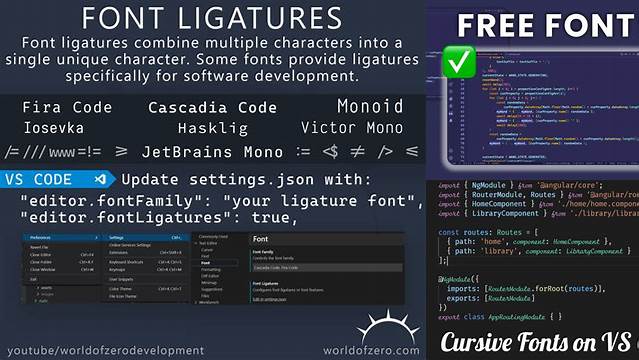
Best VS Code Fonts & How To Customize Them (Reddit Guide)
Hey everyone! If you're here, you're probably looking to jazz up your Visual Studio Code (VS Code) experience with some awesome fonts, and you've likely been browsing Reddit for some inspiration. Well, you've come to the right place! Choosing the right font in VS Code can drastically improve your coding comfort and productivity. It's like finding the perfect pair of shoes – you want something that looks good, feels great, and helps you get the job done. This guide dives deep into VS Code fonts reddit discussions, exploring the best fonts available, how to install them, and how to customize them to fit your personal coding style. Let's get started, yeah?
1. The Significance of Fonts in VS Code
So, why are VS Code fonts so important, anyway? Well, imagine staring at code for hours on end. The font you use becomes your constant companion. A good font reduces eye strain, makes your code more readable, and can even make coding more enjoyable. Seriously! The right font can highlight the structure of your code, making it easier to spot errors and understand complex logic. On the flip side, a poorly chosen font can lead to fatigue, frustration, and missed bugs. You might find yourself squinting, straining to differentiate between similar characters, and generally feeling less productive. Think of it like this: A well-designed font is like a clean, organized desk. It helps you stay focused and efficient. A messy font is like a cluttered desk. It's distracting and can slow you down. When exploring VS Code fonts Reddit discussions, you'll see a common theme: Developers take their font choices seriously. They understand that it’s a crucial part of their workflow. Different fonts are designed with different purposes in mind. Some are designed for optimal readability, others for aesthetic appeal, and still others for specific coding languages. For example, some fonts are monospaced, which means that every character takes up the same amount of horizontal space. This is generally the preferred option for coding, as it makes it easier to align code and see its structure. Others are proportional, which means that the characters take up varying amounts of space. These fonts can be more visually appealing, but they can sometimes be harder to read in code.
Choosing the right font is a matter of personal preference, so exploring the VS Code fonts reddit community is a great way to find out what works best for you. In the end, the best font is the one that helps you code comfortably and efficiently. Don’t be afraid to experiment with different options and find the font that feels right for you. You might be surprised at how much a simple font change can improve your coding experience. It's like upgrading from a basic keyboard to a mechanical one—the small change can make a huge difference in the long run. Remember, your font is more than just text on a screen. It’s an extension of your coding environment, and it’s worth taking the time to find the perfect fit.
2. Top Font Recommendations from the VS Code Reddit Community
Alright, let's get down to the good stuff: What are the best VS Code fonts, according to the wise folks of Reddit? You’ll find that the community has strong opinions, but there are definitely some clear favorites. Here's a breakdown of the top contenders, along with some insights gleaned from those VS Code fonts reddit threads:
- Fira Code: This font is a popular choice, and for good reason. Fira Code is a monospaced font with ligatures, which are special characters that combine multiple characters into a single glyph. This can make your code look cleaner and more readable. For example, the
=>operator will be displayed as a single arrow, which is visually appealing. Fira Code is known for its clarity and support for various coding languages. It’s a great all-around choice and is often recommended for beginners. It’s easy on the eyes and designed specifically for coding. So, if you're just starting out, or looking for a reliable, well-rounded font, you can't go wrong with Fira Code. - JetBrains Mono: Developed by JetBrains, the creators of popular IDEs like IntelliJ IDEA, JetBrains Mono is another excellent option. It's specifically designed for coding, with a high x-height (meaning the lowercase letters are taller, making them easier to read) and distinctive letterforms. JetBrains Mono is monospaced, supports ligatures, and is optimized for readability, even at small sizes. This is crucial if you are working on a screen with a high pixel density. JetBrains Mono is a strong contender in the VS Code fonts reddit community. If you spend a lot of time in the IDE and love its font, then JetBrains Mono is a must-try for you.
- Cascadia Code: Microsoft's own font, Cascadia Code, is designed to be modern and readable. It's another monospaced font with ligatures, and it’s specifically designed for the Windows Terminal and VS Code. Cascadia Code's ligatures support is excellent. It’s often praised for its crispness and clarity, making it a great choice for both beginners and experienced coders. It's a solid option if you want a modern feel with great legibility, and if you’re already a Windows user, it’s particularly seamless to install and use.
- Operator Mono: For those who appreciate a touch of elegance, Operator Mono is a paid font that's often mentioned in discussions about VS Code fonts reddit. It's known for its stylish, high-contrast look. It's a bit more expensive, but the investment might be worth it if aesthetics are a high priority. It has both monospaced and proportional versions, giving you a great degree of flexibility. Operator Mono often gives your code an elegant, almost artistic feel. It's a good choice if you want to add a touch of style to your coding environment.
- Other Notable Mentions: You'll also see fonts like Dank Mono, Menlo, Source Code Pro, and Inconsolata get a lot of love in the VS Code fonts reddit discussions. Each of these has its unique strengths and quirks, so exploring them is always a good idea. Finding a font is a subjective experience, and you may find that a font not listed here resonates with you and you enjoy it, so it’s always a good idea to try out a few different options.